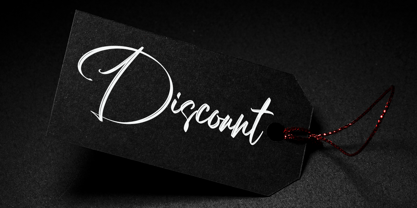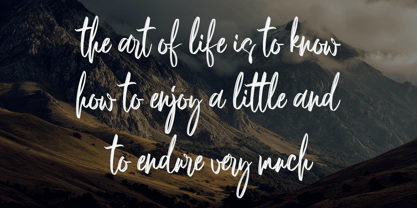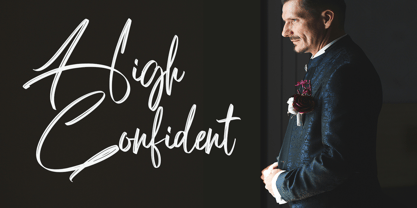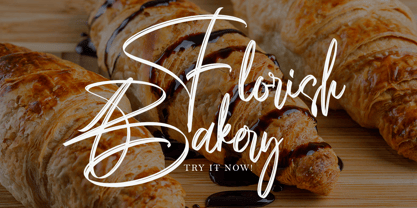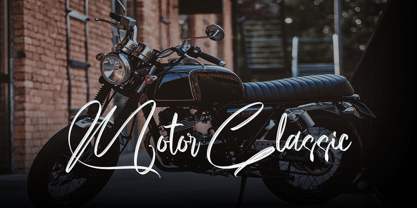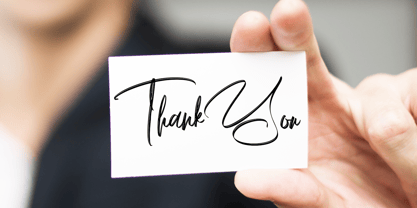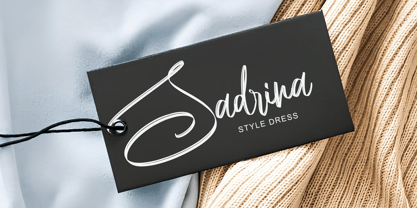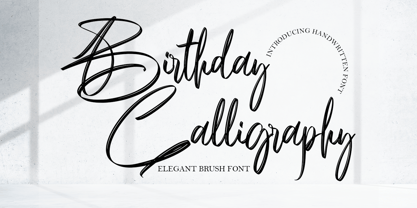
Birthday Calligraphy
The Birthday Calligraphy Font Family was designed by Khai Dir and published by Tertoecreative. Birthday Calligraphy contains 1 styles. More about this family
Birthday Calligraphy is a calligraphy brush font with a classic style and a touch of elegance. Carefully designed to work harmoniously, it’s perfect for weddings, book covers, greeting cards, logos, branding, business cards, and certificates, and for any design project requiring a classic, formal, or luxurious style.
Try Birthday Calligraphy Brush, enjoy its rich OpenType features, and let its fun and elegance delight you and boost your creativity! You can use this font very easily.